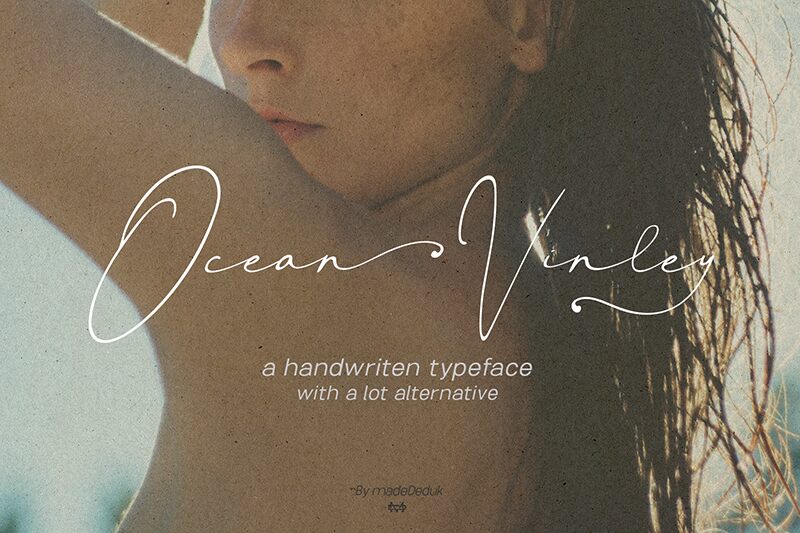
Ocean Vinley Demo Regular
Ocean Vinley font by madeDeduk is an elegant, handwritten font that offers a flowing and expressive signature style. Its contemporary appeal and personal touch make it ideal for designs seeking an individually crafted look. This light font carries a graceful ease with each stroke, fostering a harmonious and sophisticated aesthetic.